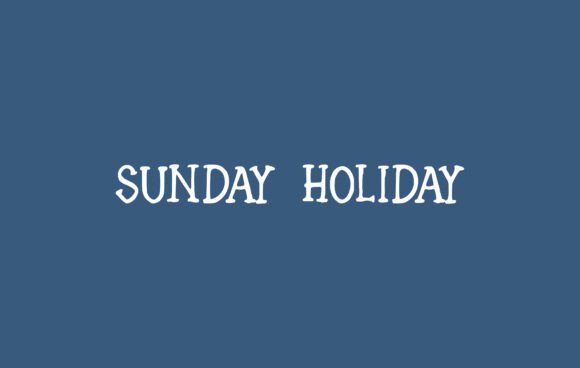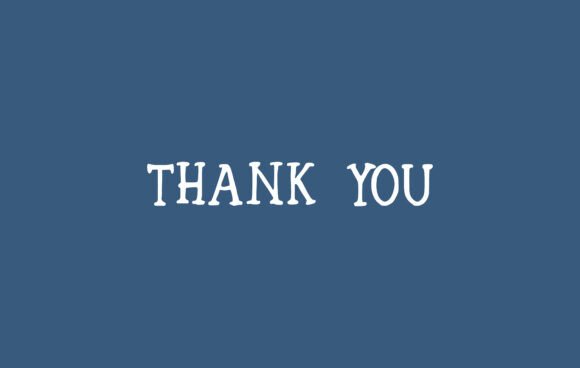
Introducing Blitztrace Font: Adding a Touch of Whimsy to Your Designs
In the world of typography, fonts play a crucial role in setting the tone and personality of a design. For designers and crafters looking to add a dash of playfulness and charm to their projects, the Blitztrace font is an excellent choice. This delightful font features bouncy serifs with irregular strokes, giving it a hand-crafted look that’s perfect for a variety of creative applications.
What is Blitztrace Font?
Blitztrace font is a unique and eye-catching typeface that boasts playful, bouncy serifs with irregular strokes. This distinctive design element adds a touch of whimsy and charm to any project, making it ideal for designers and crafters who want to create something truly special. Whether you’re working on a storybook title, invitation, or branding project, Blitztrace font is sure to make your design stand out.
Key Features of Blitztrace Font
- Playful, bouncy serifs: The irregular strokes and bouncy serifs of Blitztrace font give it a lively, energetic feel that’s perfect for designs that need a touch of playfulness.
- Hand-crafted charm: The font’s irregular strokes and unique design elements give it a hand-crafted look that’s perfect for designers and crafters who want to add a personal touch to their projects.
- Versatile: Blitztrace font is suitable for a wide range of design applications, including storybook titles, invitations, branding, and more.
Use Cases for Blitztrace Font
Blitztrace font is an incredibly versatile typeface that can be used in a variety of design applications. Here are some ideas to get you started:
- Storybook titles: Add a touch of whimsy to your storybook titles with Blitztrace font. Its playful, bouncy serifs are perfect for children’s books, fairy tales, and other storybook-style designs.
- Invitations: Make your invitations stand out with Blitztrace font. Its unique design elements and hand-crafted charm make it perfect for wedding invitations, birthday party invites, and other special occasions.
- Whimsical branding: Add a touch of personality to your brand with Blitztrace font. Its playful, energetic design is perfect for brands that want to stand out and make a statement.
Tips for Using Blitztrace Font
To get the most out of Blitztrace font, here are a few tips to keep in mind:
- Use it sparingly: While Blitztrace font is perfect for adding a touch of whimsy to your designs, it’s best to use it sparingly. Use it for headlines or titles, and pair it with a simpler font for body text.
- Experiment with colors: Blitztrace font looks great in a variety of colors, so don’t be afraid to experiment and find the perfect hue for your design.
- Pair it with other fonts: Blitztrace font pairs well with a variety of other fonts, so feel free to experiment and find the perfect combination for your design.
In conclusion, Blitztrace font is a unique and versatile typeface that’s perfect for designers and crafters looking to add a touch of whimsy to their projects. Its playful, bouncy serifs and hand-crafted charm make it ideal for storybook titles, invitations, and whimsical branding. With its versatility and charm, Blitztrace font is sure to become a favorite in your design toolkit.